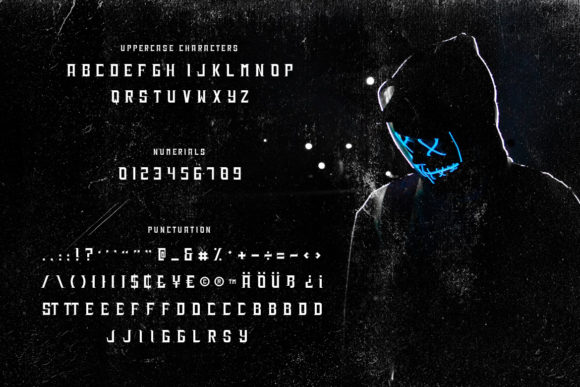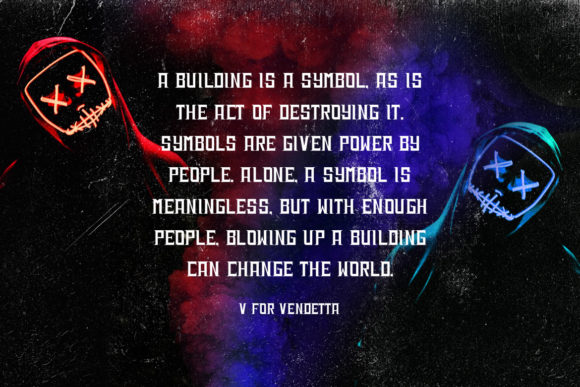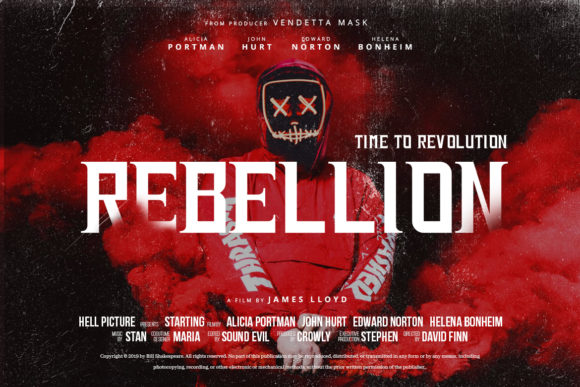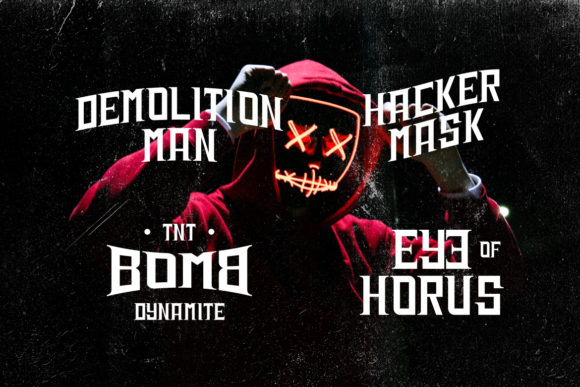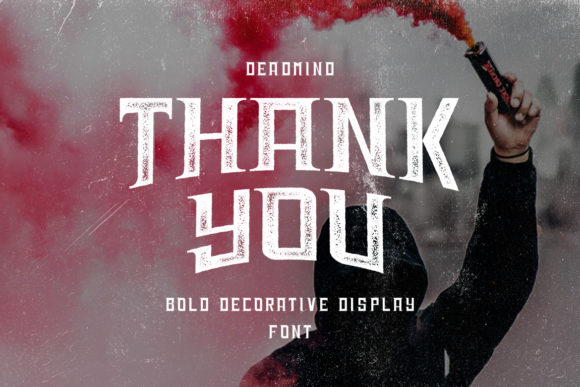
Introducing Deadmind Font: The Assertive and Unique Display Font
Are you tired of using the same old fonts in your creative projects? Look no further than Deadmind Font, an assertive and unique display font that’s sure to make your ideas come alive. In this article, we’ll take a closer look at what makes Deadmind Font so special and how you can use it to take your designs to the next level.
The Story Behind Deadmind Font
Deadmind Font is a carefully crafted typeface that’s designed to make a statement. Its unique and assertive style is perfect for designers and crafters who want to add a touch of personality to their work. Whether you’re creating a logo, poster, or social media graphic, Deadmind Font is sure to grab attention and leave a lasting impression.
Key Features of Deadmind Font
So, what makes Deadmind Font so special? Here are just a few of its key features:
- Unique and Assertive Style: Deadmind Font has a bold and confident style that’s perfect for making a statement.
- Display Font: Deadmind Font is specifically designed as a display font, making it perfect for headlines, titles, and other attention-grabbing elements.
- Highly Versatile: Deadmind Font can be used in a wide range of creative projects, from logos and posters to social media graphics and more.
- Easily Readable: Despite its bold style, Deadmind Font is still highly readable, making it perfect for use in a variety of contexts.
How to Use Deadmind Font in Your Designs
Now that we’ve covered the key features of Deadmind Font, let’s take a look at how you can use it in your designs. Here are a few ideas to get you started:
- Logos and Branding: Use Deadmind Font to create a bold and memorable logo that sets your brand apart.
- Posters and Flyers: Add Deadmind Font to your posters and flyers to grab attention and draw people in.
- Social Media Graphics: Use Deadmind Font to create eye-catching social media graphics that stand out from the crowd.
- Packaging and Labels: Add Deadmind Font to your packaging and labels to give them a bold and eye-catching look.
Tips for Getting the Most Out of Deadmind Font
Here are a few tips for getting the most out of Deadmind Font:
- Experiment with Different Sizes: Deadmind Font looks great in a variety of sizes, so don’t be afraid to experiment and find the perfect size for your design.
- Pair it with Other Fonts: Deadmind Font pairs well with a variety of other fonts, so try combining it with some of your favorite typefaces.
- Use it to Create Contrast: Use Deadmind Font to create contrast in your designs and draw attention to specific elements.
In conclusion, Deadmind Font is an assertive and unique display font that’s perfect for designers and crafters who want to add a touch of personality to their work. With its bold and confident style, Deadmind Font is sure to grab attention and leave a lasting impression. Whether you’re creating a logo, poster, or social media graphic, Deadmind Font is a great choice. So why not give it a try and see how it can help take your designs to the next level?
- What type of font is Deadmind Font?: Deadmind Font is a display font.